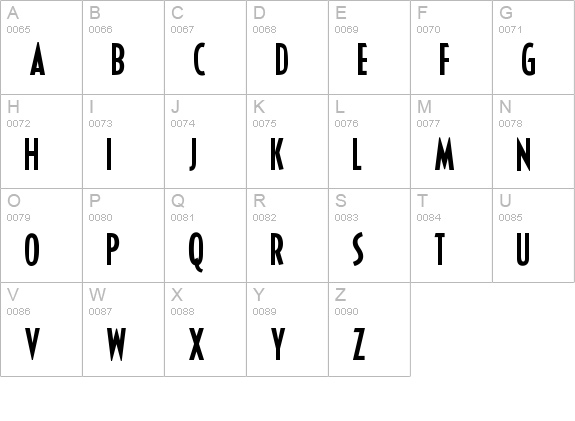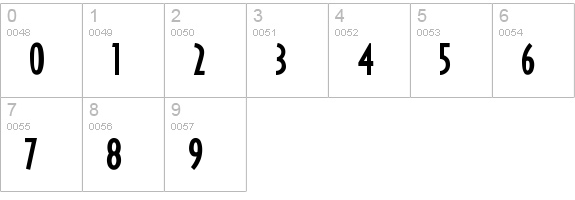
TRGCasablanca Font Details
TRGCasablanca font is the epitome of elegance and sophistication. Its sleek and modern design makes it the perfect choice for any project that requires a touch of class. With its clean lines and stylish curves, TRGCasablanca font is sure to impress. But what sets TRGCasablanca font apart from other fonts is that it is free. Yes, you heard that right. This incredible font is freely available to download at FontsMarket.com. Now, you don't have to worry about breaking the bank to add a touch of elegance to your designs. Whether you're working on a logo, a website, or any other creative endeavor, TRGCasablanca font will elevate your work to a whole new level. Its versatility allows it to adapt to any style or theme, making it a truly versatile font. But it's not just the aesthetics that make TRGCasablanca font extraordinary. It also boasts excellent legibility, ensuring that your message is conveyed clearly and effectively. Whether it's in print or on screen, TRGCasablanca font will captivate your audience with its effortless readability. So why wait? Head over to FontsMarket.com and download TRGCasablanca font for free today. Experience the sophistication and elegance that this remarkable font brings to your designs. Don't miss out on this incredible opportunity to elevate your creative projects with TRGCasablanca font.